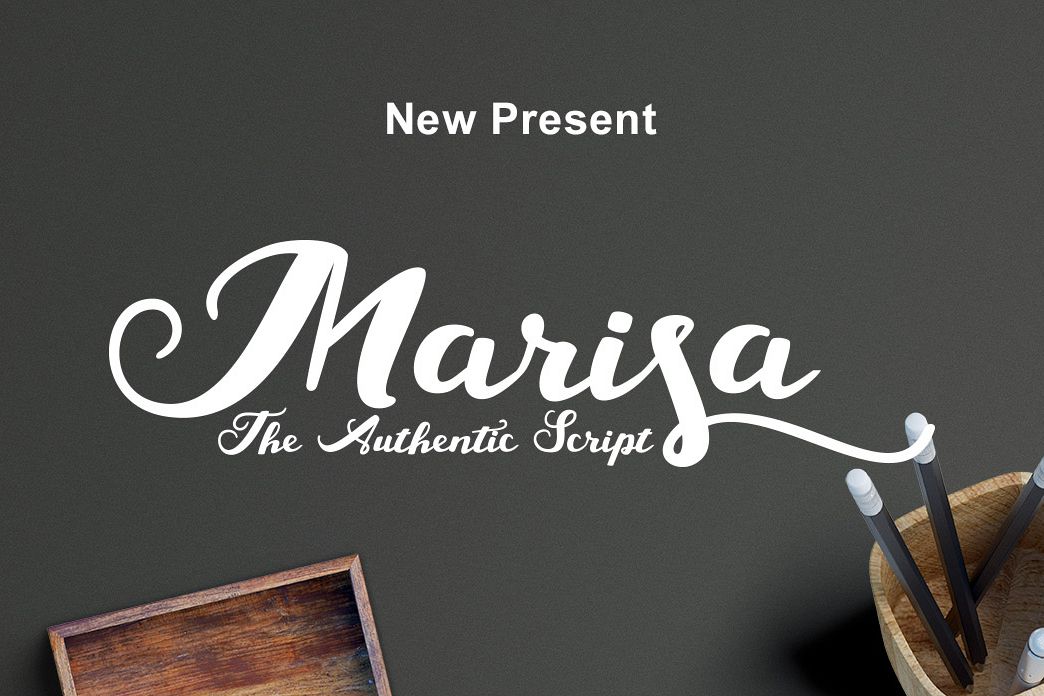
Marisa Script
New Present ....
Marisa Script a new fresh & modern Brush script with a sweet calligraphy-style, decorative characters and a dancing baseline! So beautiful on invitation like greeting cards, branding materials, business cards, quotes, posters, and more!